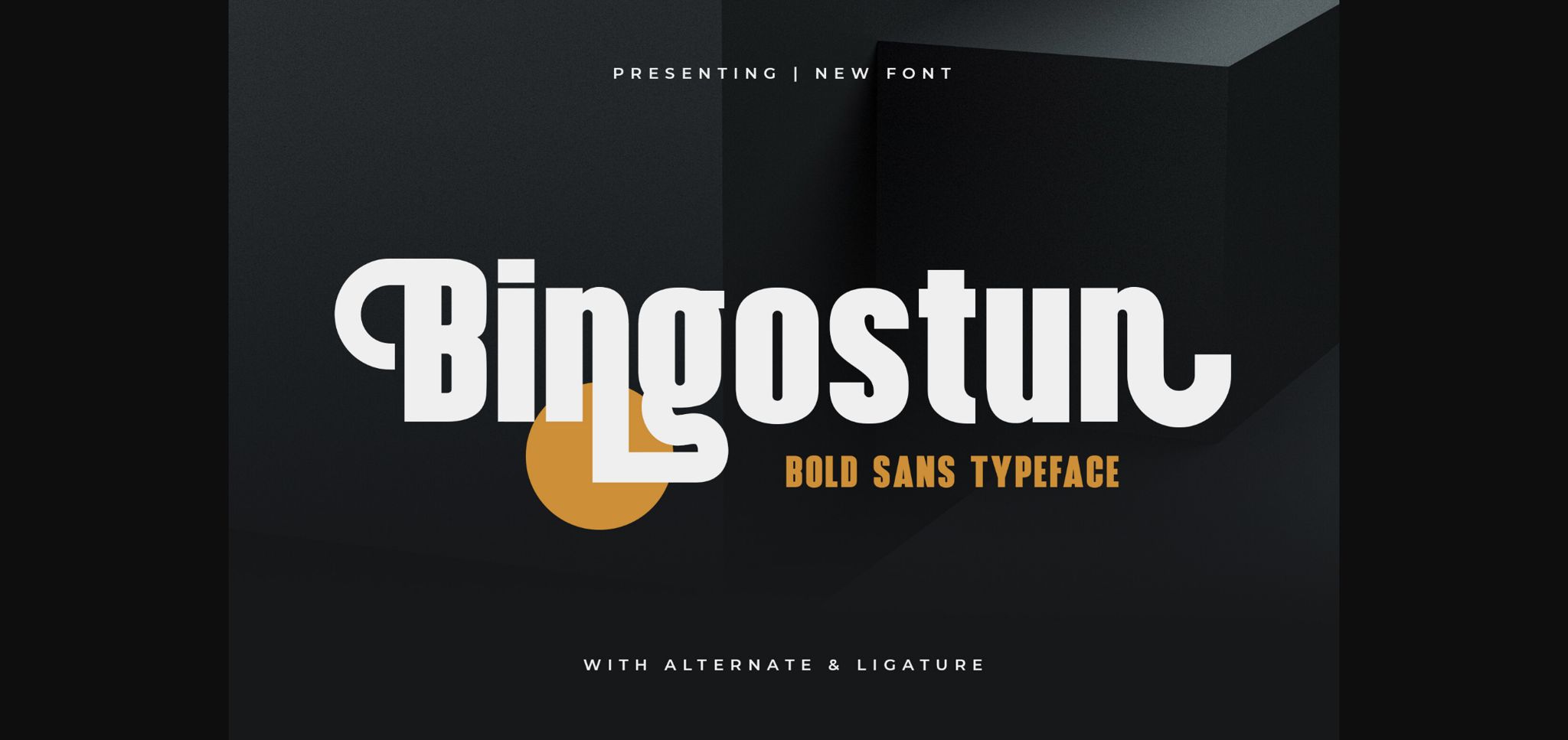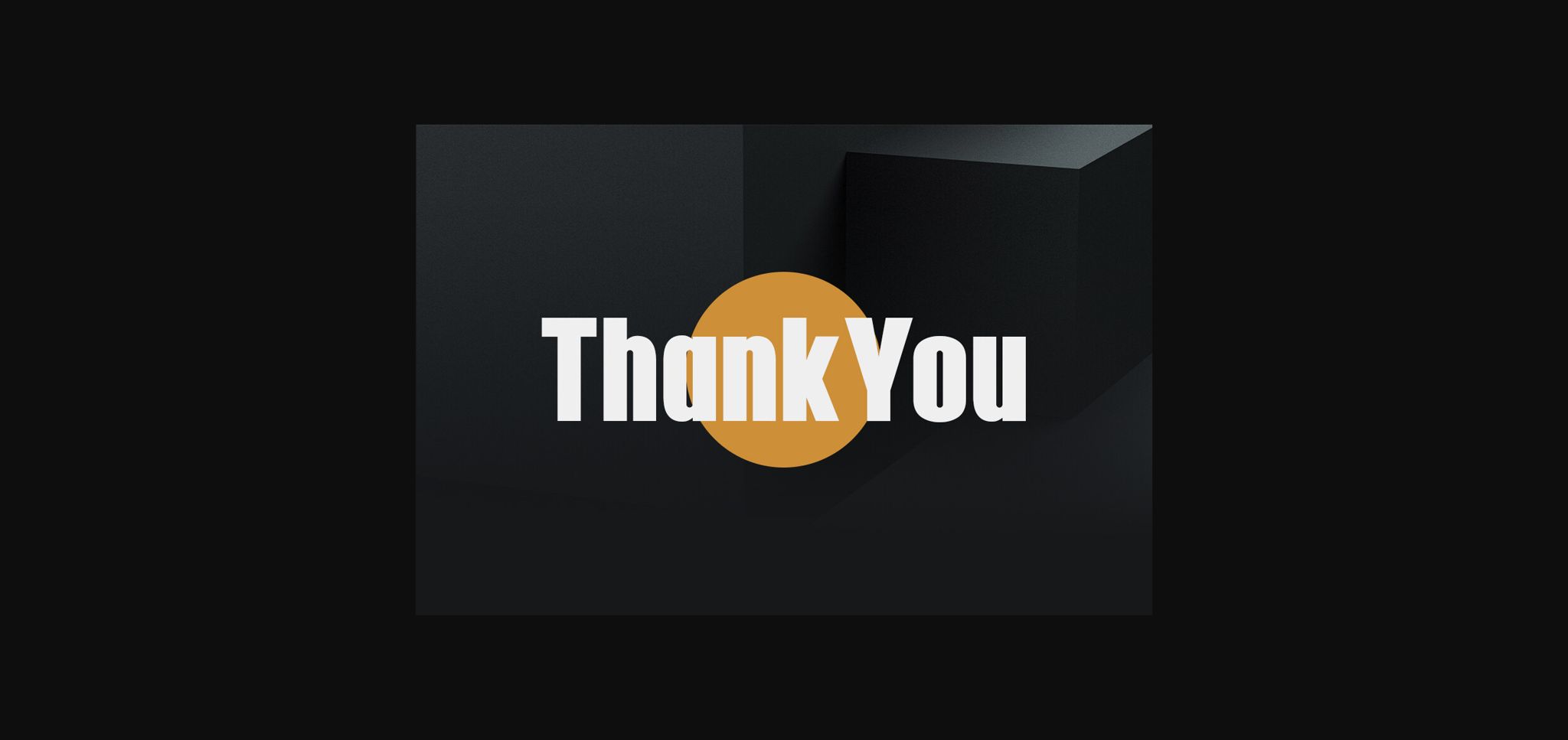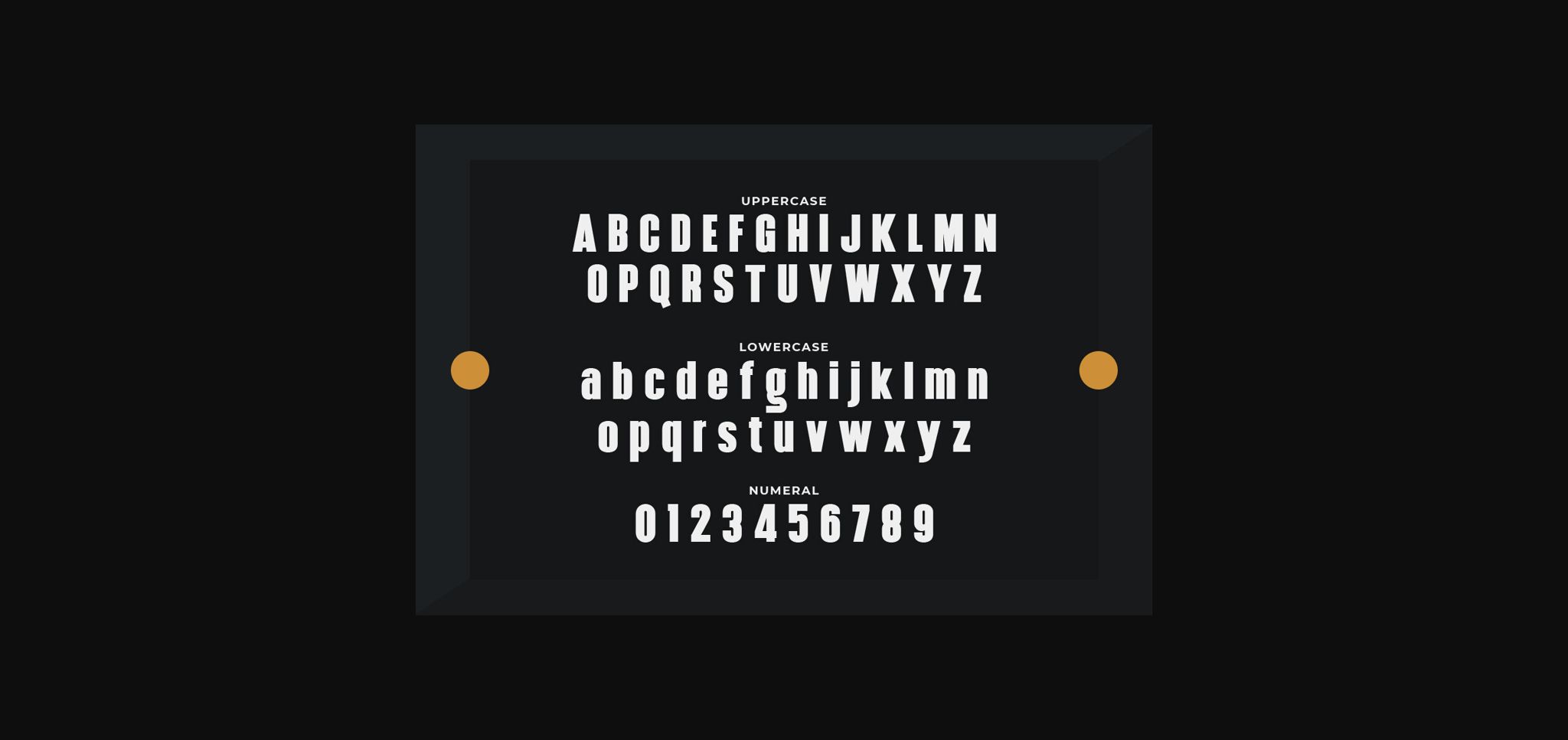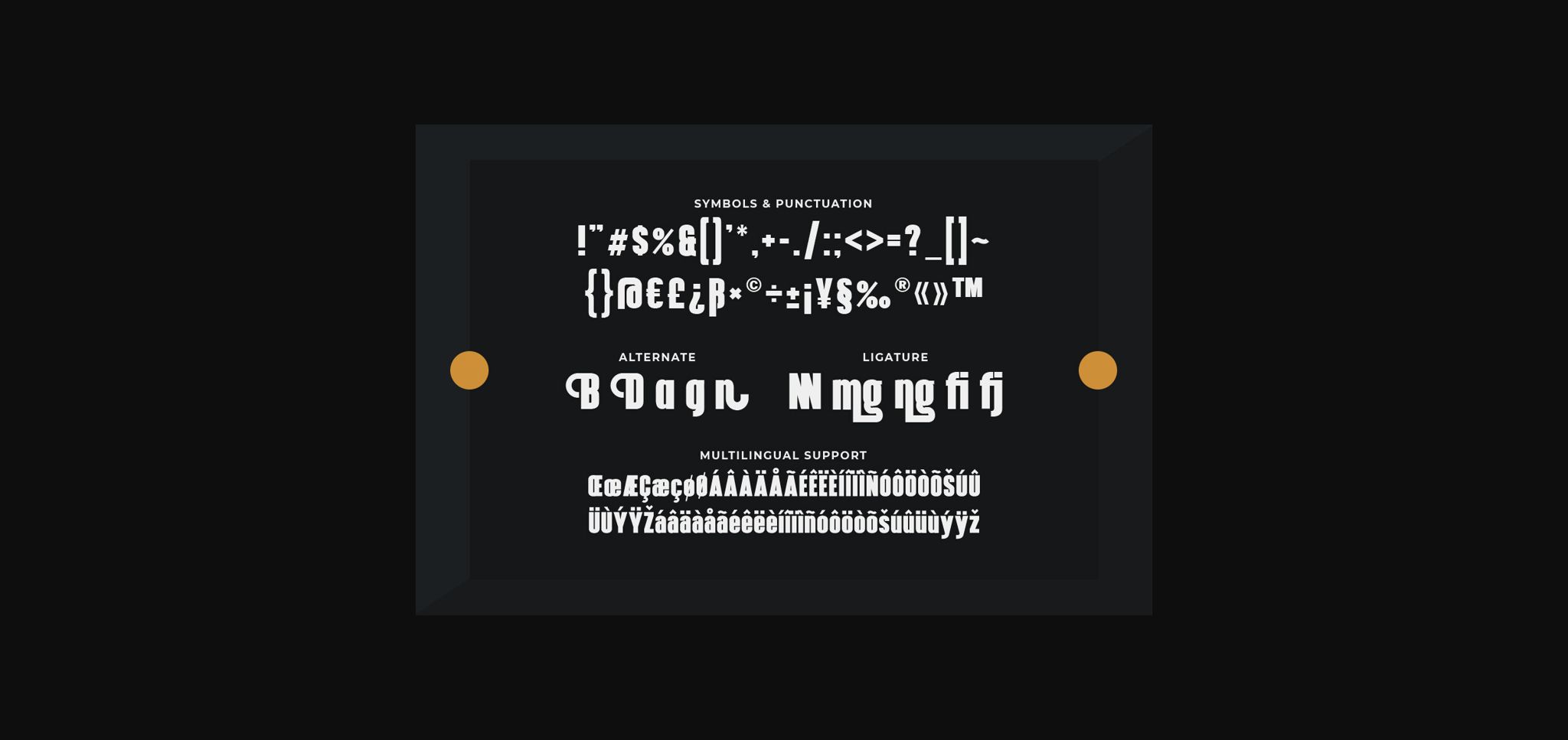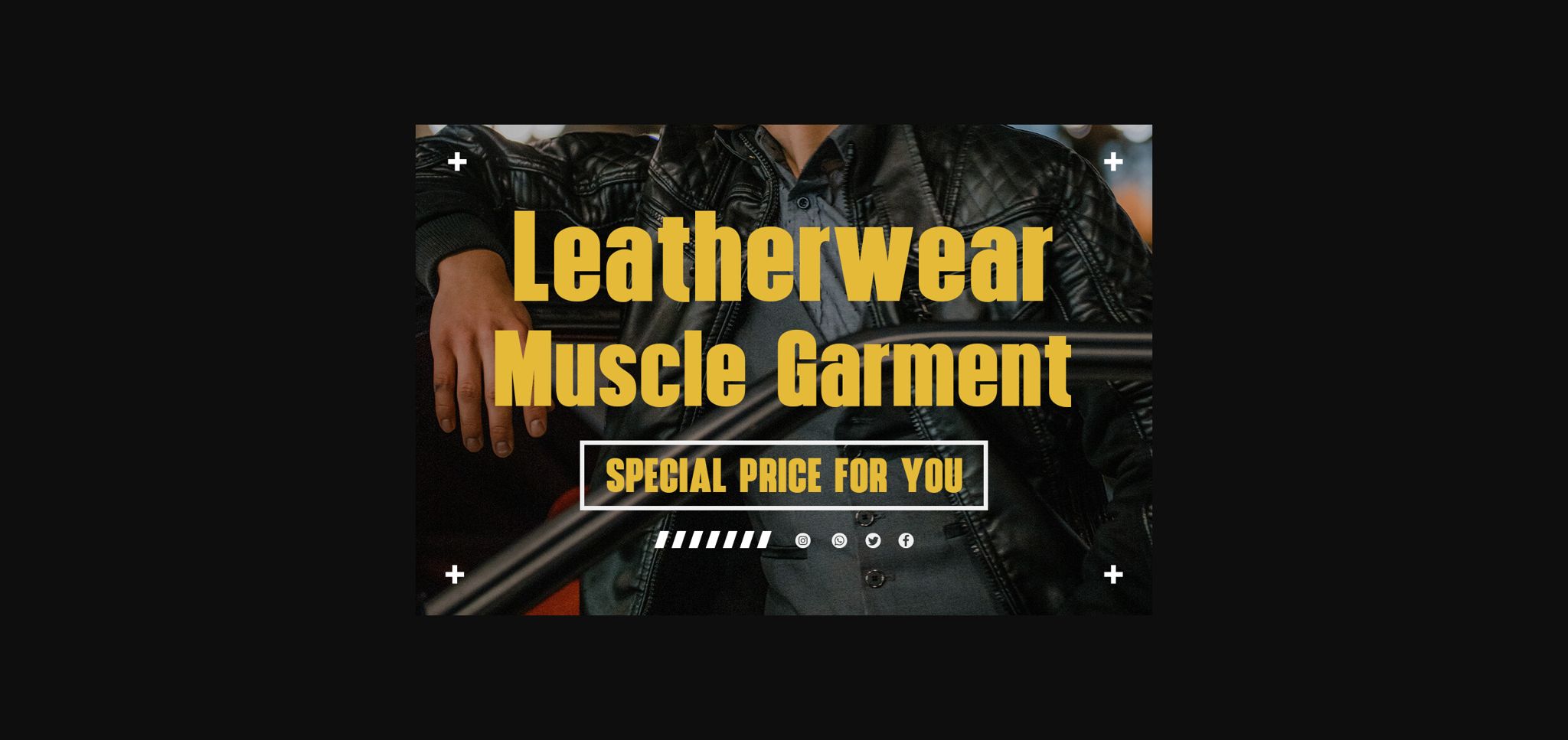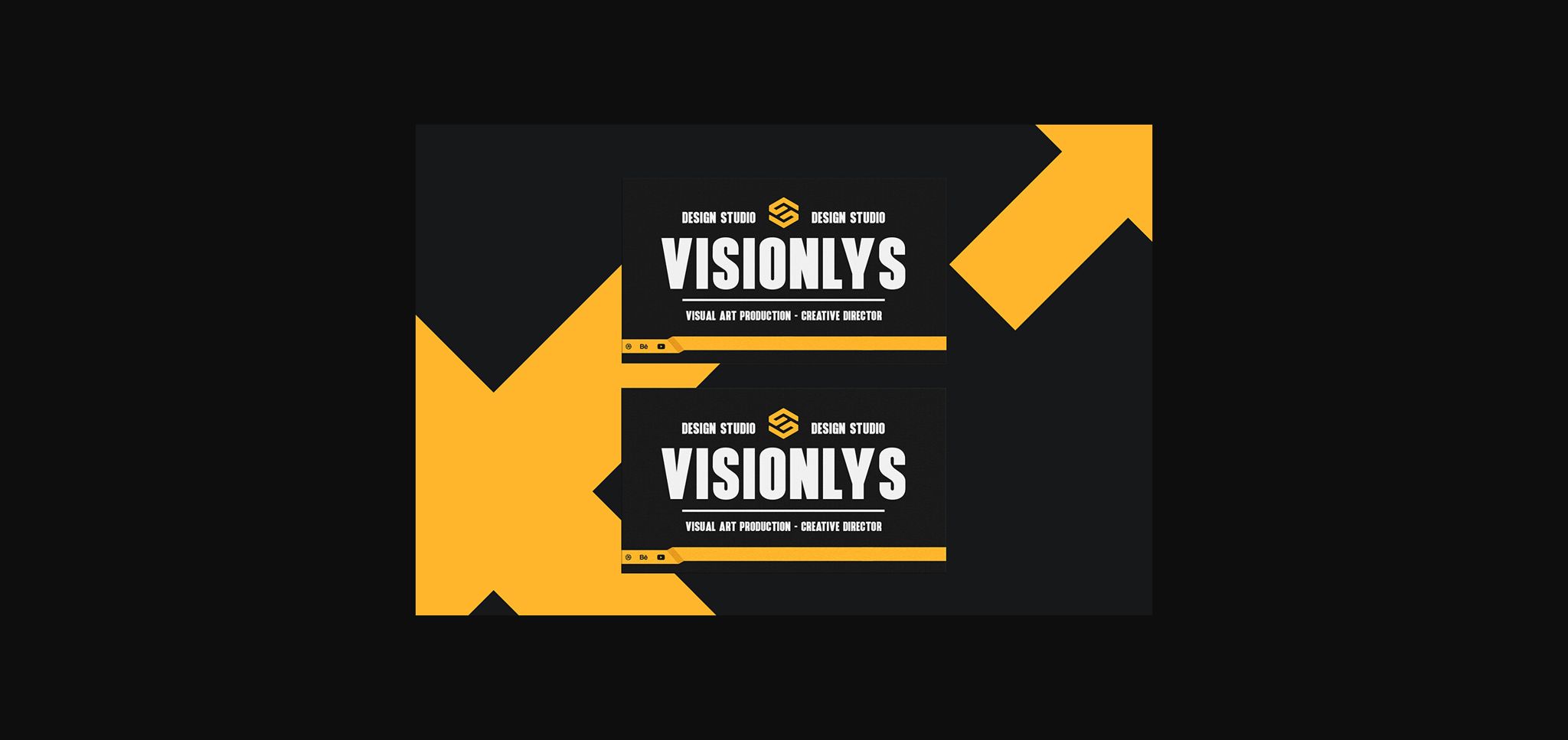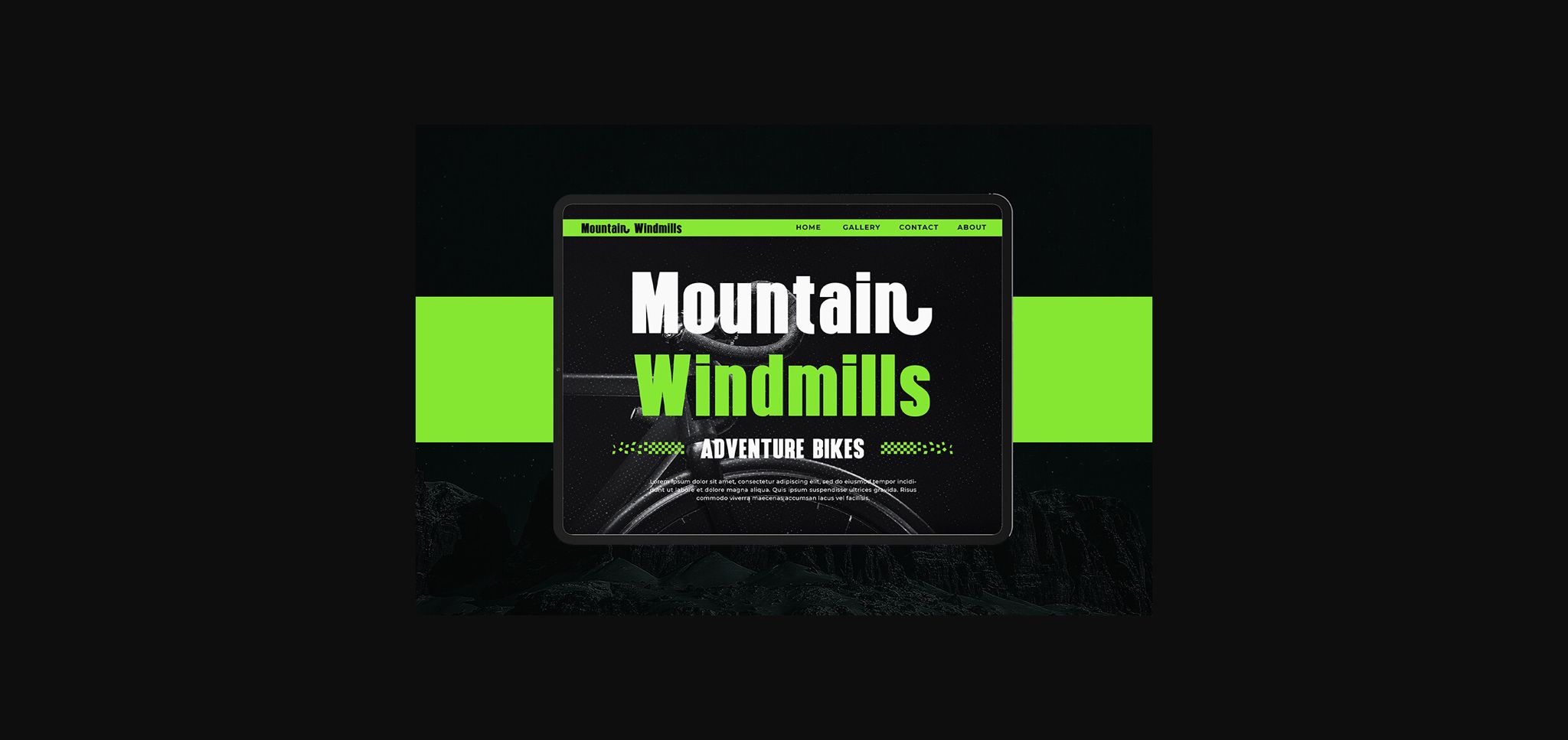
Bingostun Font
About Bingostun Font
Introducing “Bingostun” – a bold sans-serif typeface that commands attention and delivers impact in every design.
With its strong and decisive letterforms, “Bingostun” makes a bold statement wherever it’s used. Each character is meticulously crafted to exude confidence and clarity, making it ideal for headlines, branding, posters, and more.
Embrace the powerful presence of “Bingostun” as it effortlessly enhances your designs. Whether you’re creating striking logos, attention-grabbing headlines, impactful signage, or bold social media graphics, this font will captivate your audience with its bold and dynamic style.
Step into a world of bold typography with “Bingostun” and let your designs speak volumes with its strong and commanding presence.